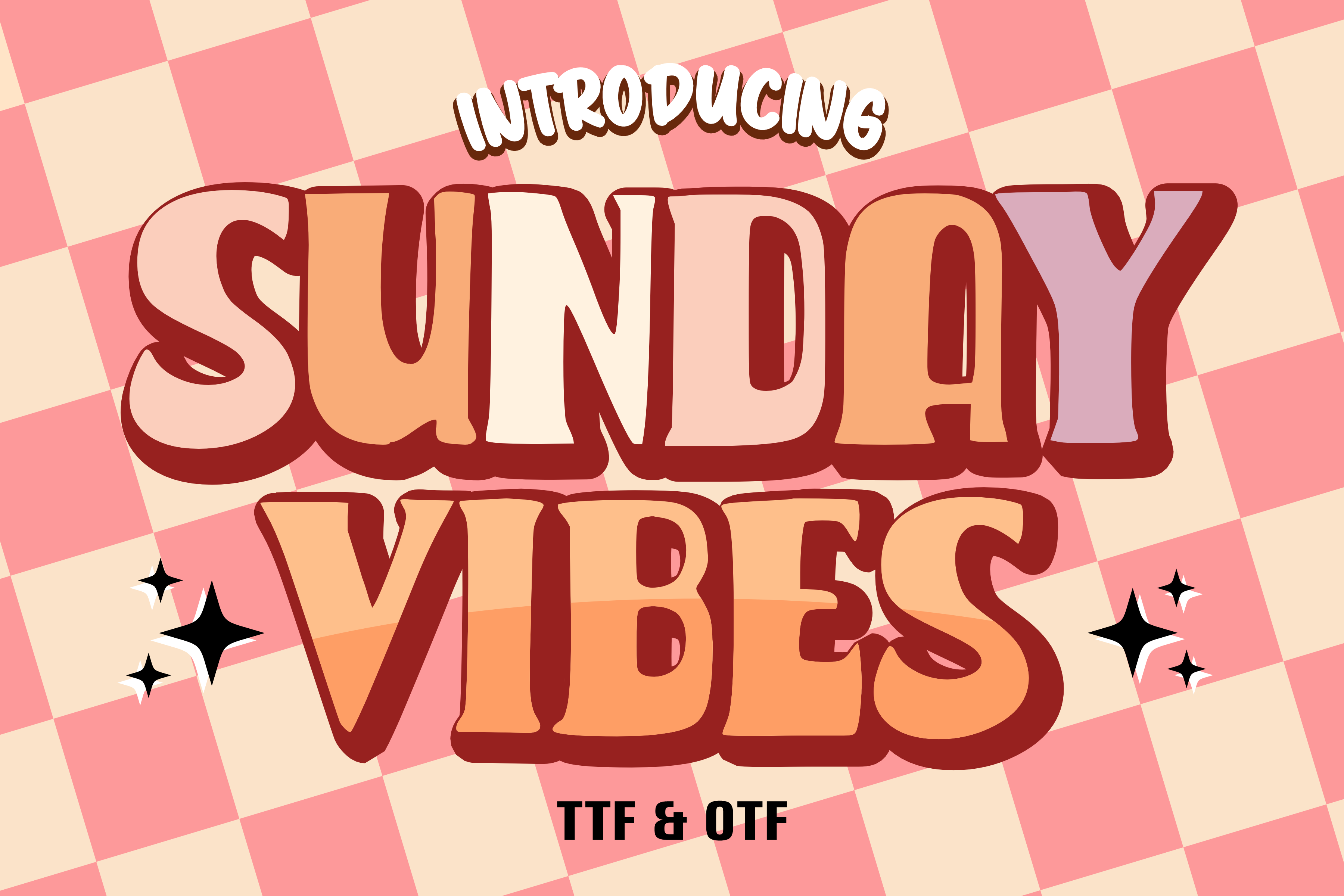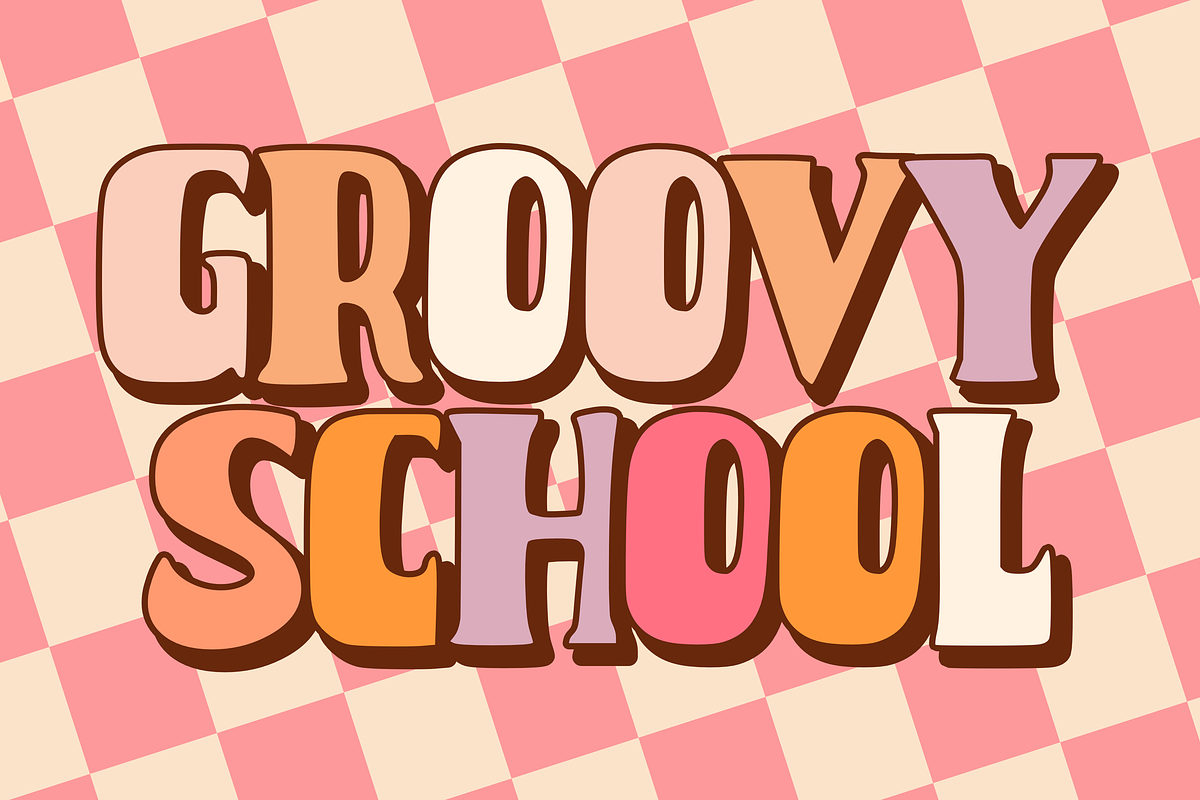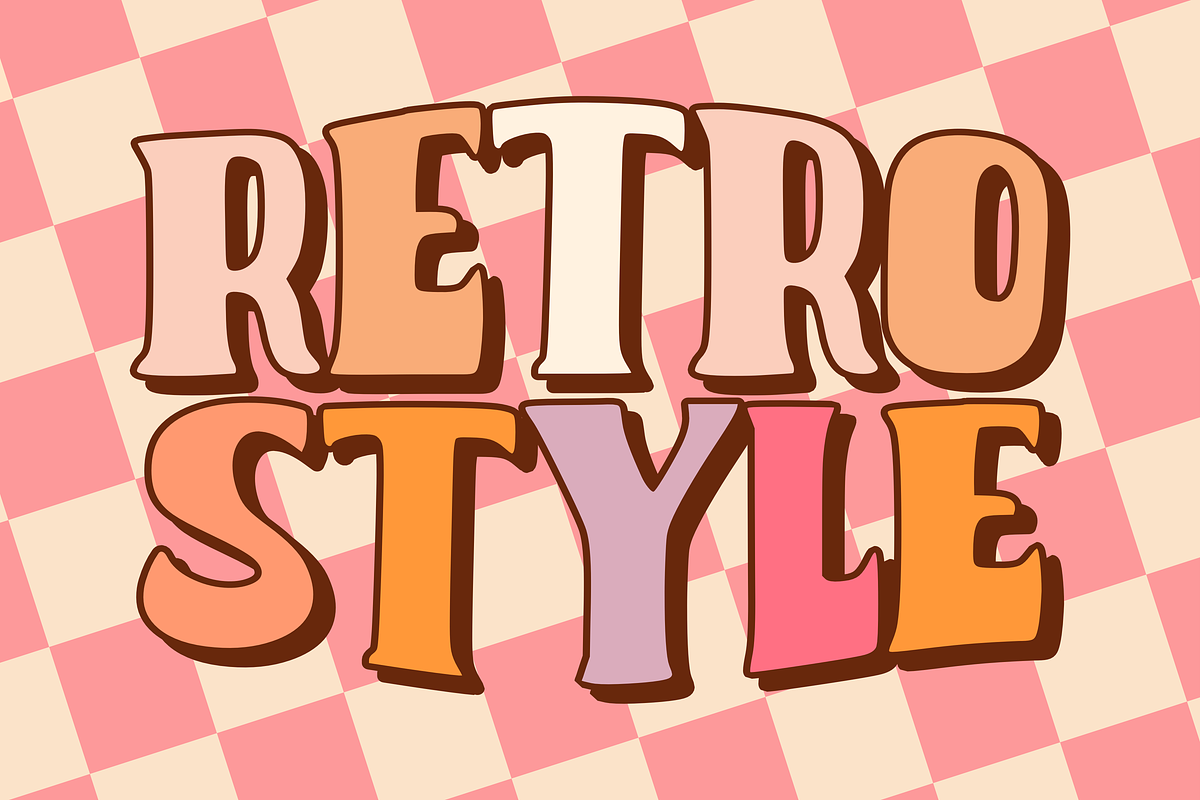
Sunday Vibes - Retro Font Types
Sunday Vibes is a retro typeface that is taking the world by storm. With its retro style and look, this font offers hope for creative endeavors of all kinds. Let this font add a pop of color and aesthetic elements to your designs, perfect for everything from posters, stickers, comics, children’s books, and more.